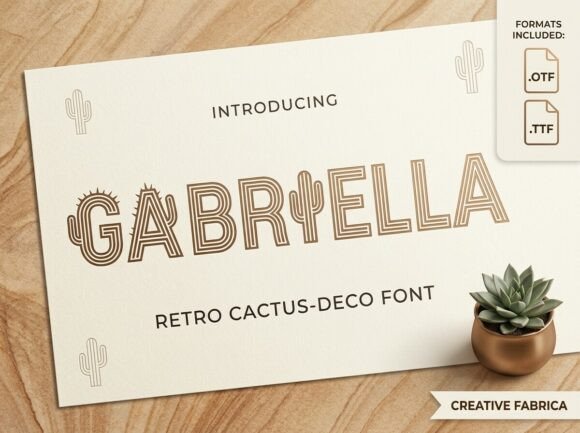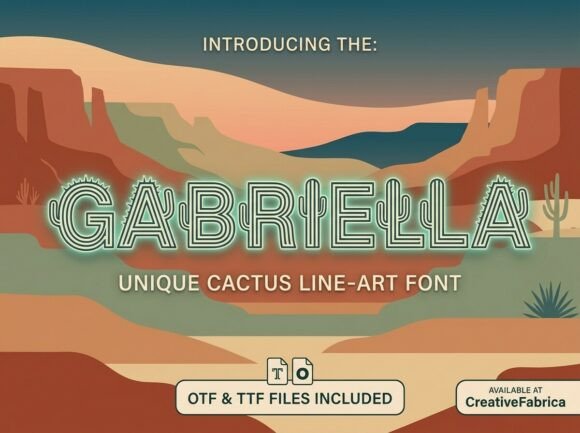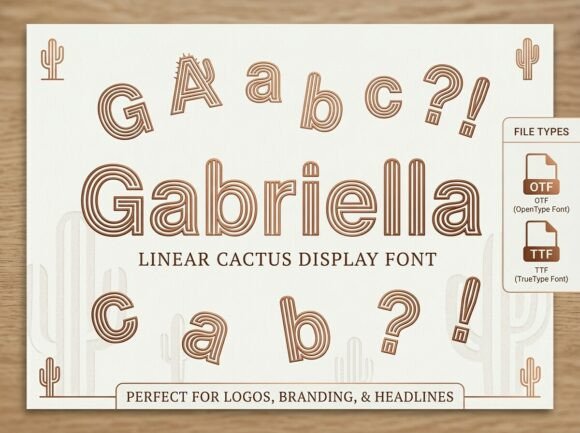
Introducing Gabriella: The Retro Cactus-Deco Font that Embodies the Spirit of the Southwest
Are you looking for a font that captures the essence of the American Southwest? Do you want to add a touch of Mid-Century Modern flair to your designs while evoking the adventurous spirit of the Wild West? Look no further than Gabriella, a playful yet sophisticated display font that combines the best of both worlds.
A Font that Blends Palm Springs Chic with Wild West Adventure
Gabriella is more than just a font – it’s an experience. Imagine strolling down the sun-kissed streets of Palm Springs, surrounded by sleek, modern architecture and vintage signage. Now, picture yourself surrounded by the majestic beauty of the desert landscape, with cacti standing tall and proud. Gabriella brings these two worlds together in a unique and captivating way.
Unique Multi-Line Detailing and Integrated Cactus Silhouettes
What sets Gabriella apart from other fonts is its distinctive multi-line detailing and integrated cactus silhouettes. Each letter is carefully crafted to feature intricate lines and curves that evoke the retro charm of Mid-Century Modern design. At the same time, the font incorporates silhouettes of cacti, adding a touch of whimsy and playfulness to your designs.
Perfect for Branding, Summer Event Posters, and Quirky Editorial Layouts
Gabriella is a versatile font that can be used in a variety of design applications. Whether you’re creating a brand identity, designing posters for a summer event, or laying out a quirky editorial spread, this font is sure to make a statement. Its unique blend of sophistication and playfulness makes it perfect for designers who want to add a touch of personality to their work.
Key Features of Gabriella
- Mid-Century Modern aesthetics: Gabriella’s design is inspired by the sleek, modernist lines of the 1950s and 60s.
- Desert charm: The font’s integrated cactus silhouettes add a touch of whimsy and playfulness to your designs.
- Multi-line detailing: Each letter features intricate lines and curves that evoke the retro charm of Mid-Century Modern design.
- Display font: Gabriella is perfect for headlines, titles, and other display text.
How to Use Gabriella in Your Designs
Gabriella is easy to use and can be incorporated into your designs in a variety of ways. Here are a few ideas to get you started:
- Branding: Use Gabriella as a logo font or as part of a brand identity package.
- Summer event posters: Add a touch of desert charm to your posters with Gabriella’s unique cactus silhouettes.
- Quirky editorial layouts: Use Gabriella to add a touch of personality to your editorial spreads.
Gabriella is a one-of-a-kind font that embodies the spirit of the American Southwest. With its unique blend of Mid-Century Modern aesthetics and desert charm, this font is perfect for designers who want to add a touch of personality to their work. Whether you’re creating a brand identity, designing posters for a summer event, or laying out a quirky editorial spread, Gabriella is sure to make a statement.